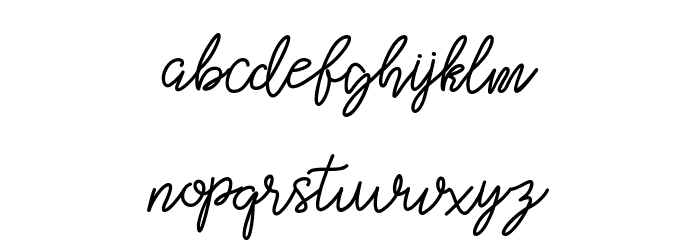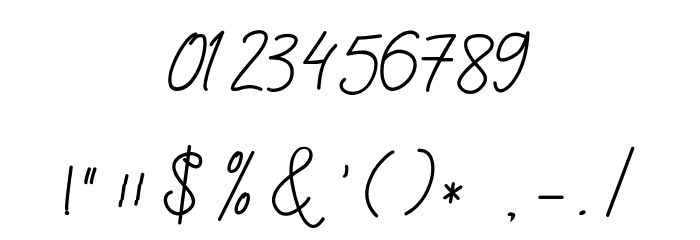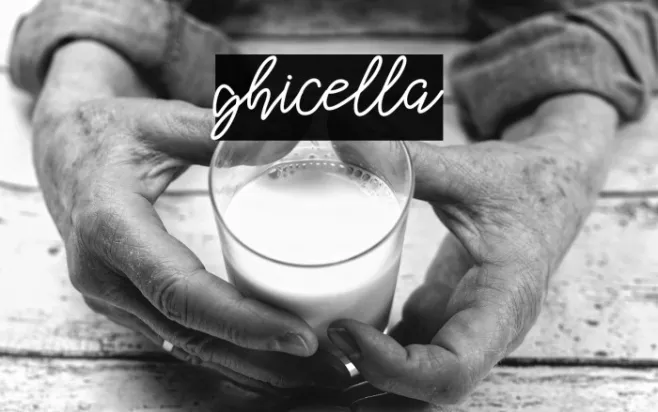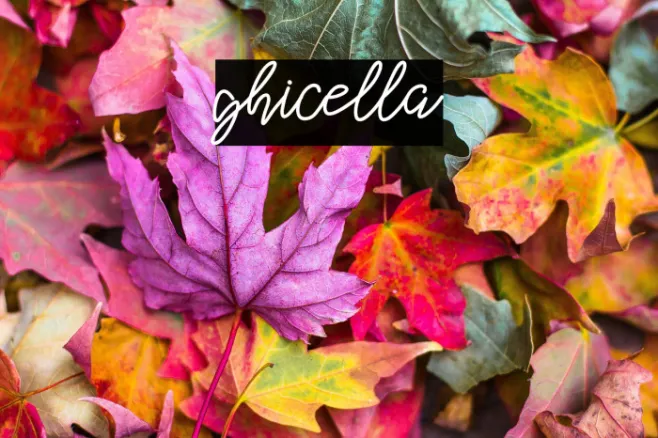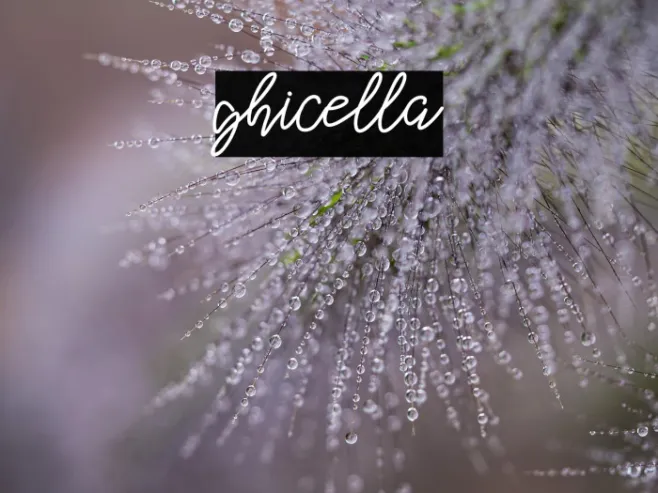
ghicella Font
This font features a flowing, cursive style with elegant, interconnected letters that mimic natural handwriting. The uppercase letters are slightly more elaborate, with graceful loops and curves, while the lowercase letters maintain a consistent, smooth flow. The numerals and special characters are designed to complement the script, maintaining the same fluidity and elegance. The overall appearance is sophisticated and artistic, making it suitable for creative and decorative purposes. The font's design is both stylish and readable, offering a touch of class to any project.
A flowing, cursive script font with elegant, interconnected letters.
- Proposed Projects: Ideal for wedding invitations, greeting cards, personal branding, and artistic projects.
- Use Case: Logos, Invitations, Artistic projects